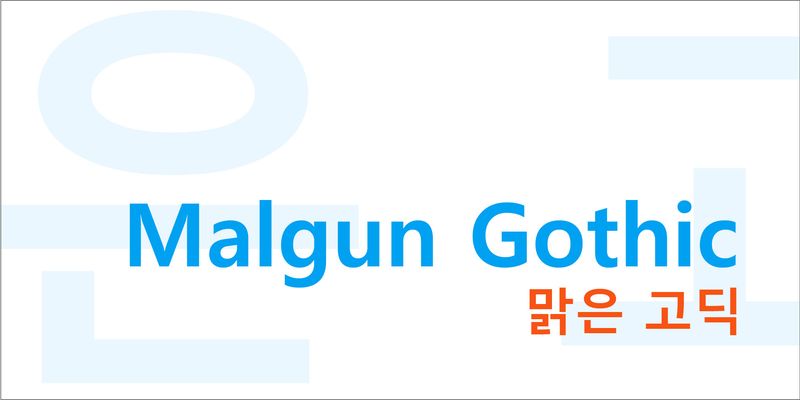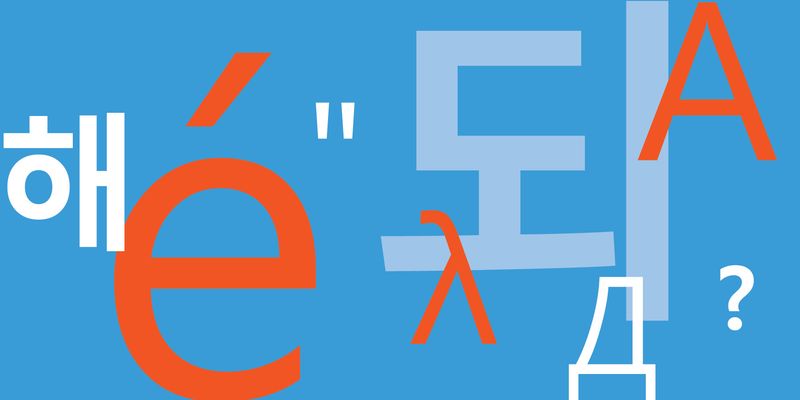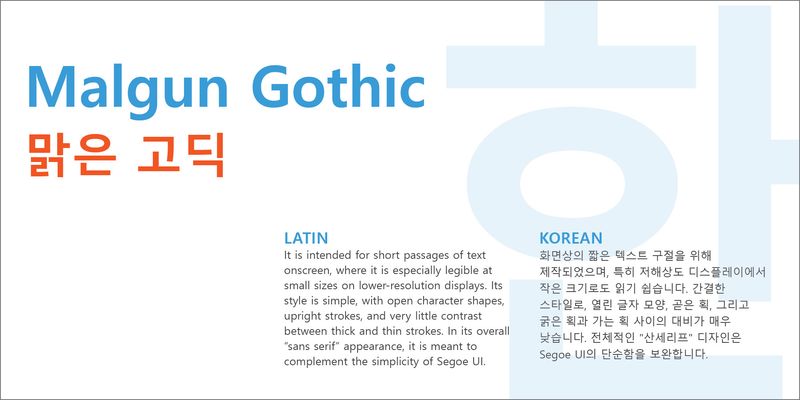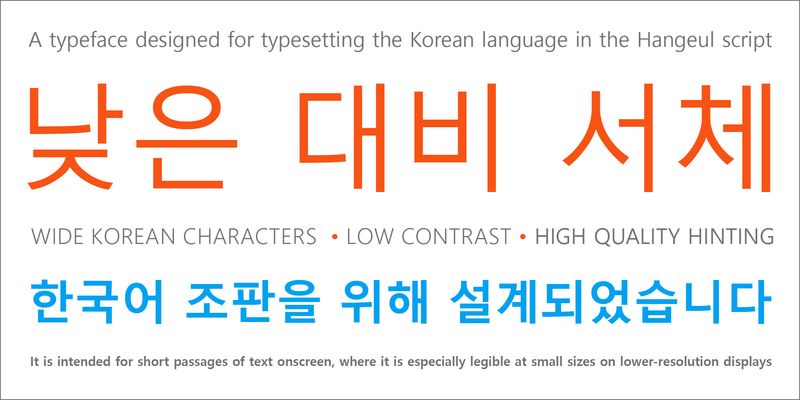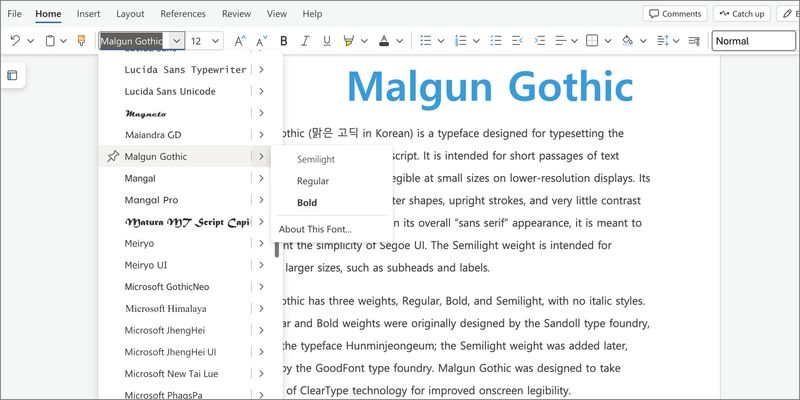
Malgun Gothic is intended for short passages of text onscreen, where it is especially legible at small sizes on lower-resolution displays. Its style is simple, with open character shapes, upright strokes, and very little contrast between thick and thin strokes. In its overall “sans serif” appearance, it is meant to complement the simplicity of Segoe UI.